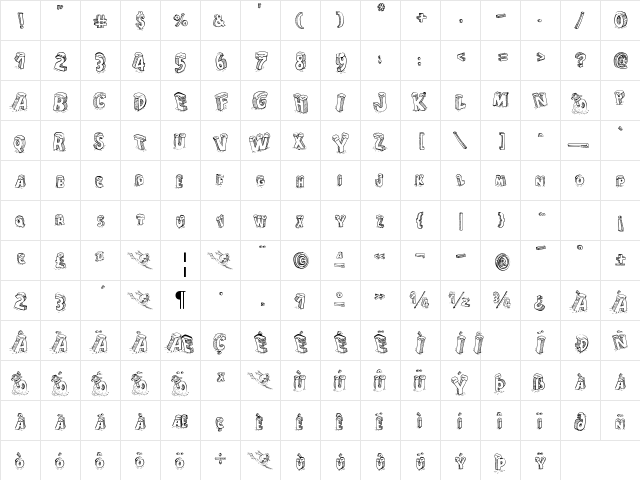
Cartoon Blocks Christmas Regular Font Preview
Cartoon Blocks Christmas Regular
Cartoon Blocks Christmas Regular Font Details
Design Context for Cartoon Blocks Christmas Typeface
Cartoon Blocks Christmas trades formality for fun, with bouncy, characterful letterforms that bring warmth and energy to any project.
Font Pairing: Pairs well with a rounded or humanist sans for body copy, maintaining the friendly tone without relying on Cartoon Blocks Christmas to carry extended reading.
Pro Tip: Avoid using Cartoon Blocks Christmas for long passages of text — it works best for headlines, labels, and short calls to action.